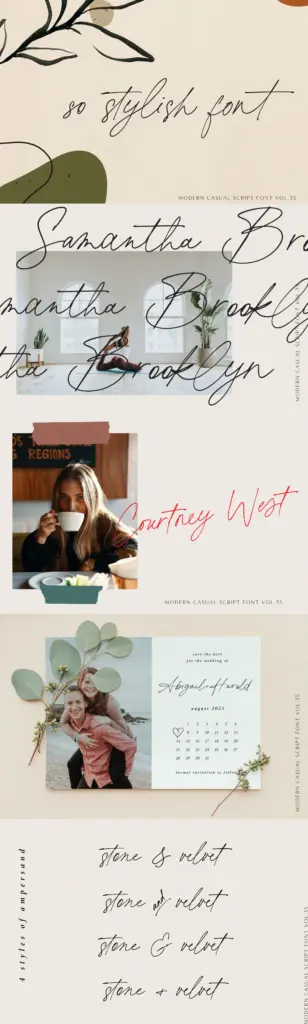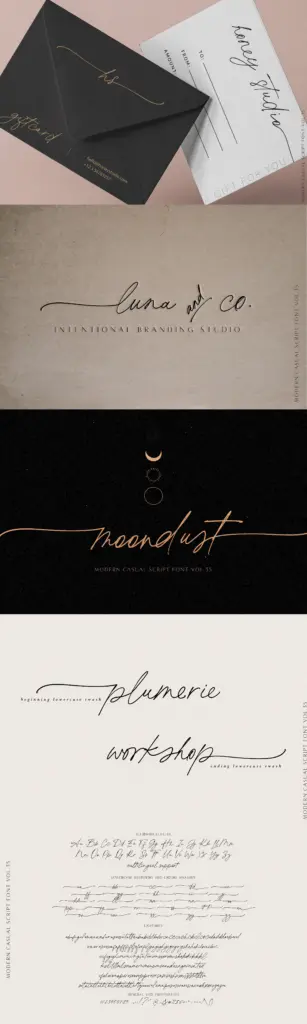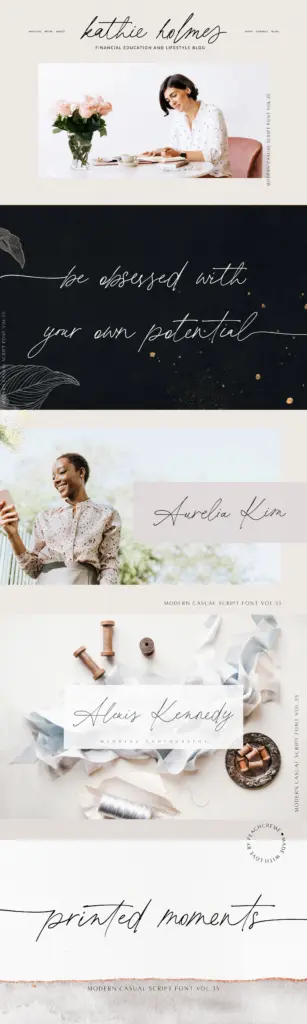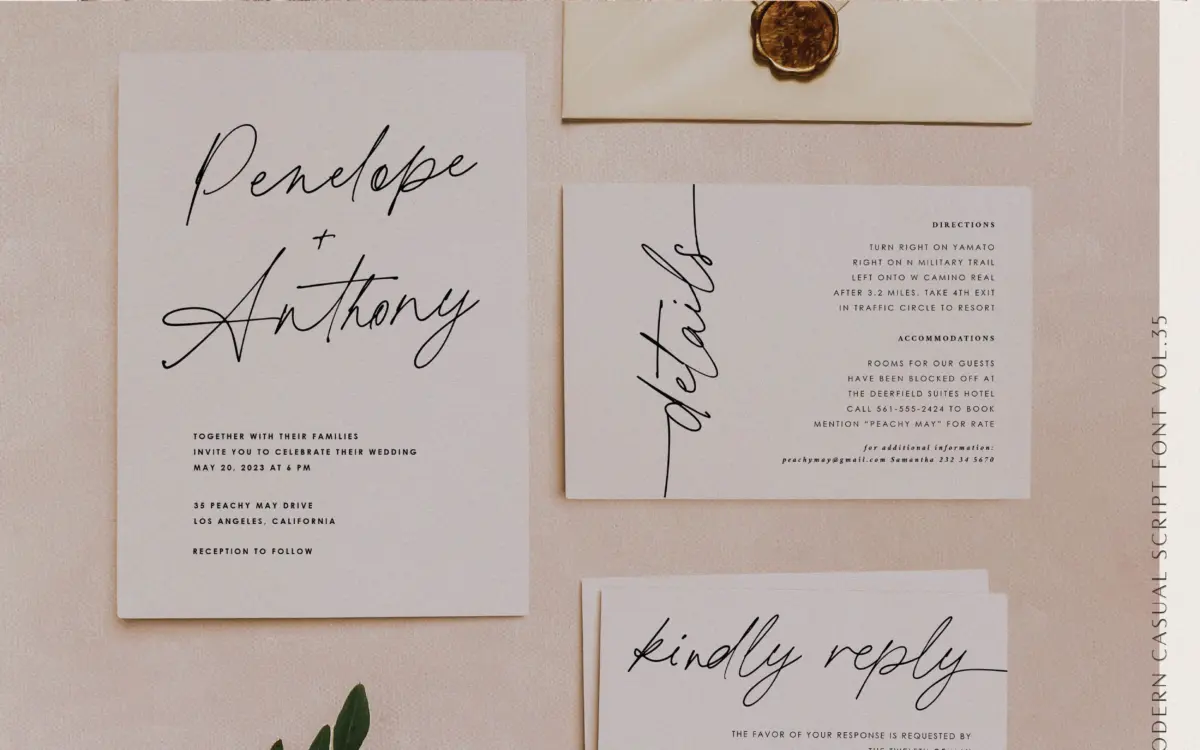
Printed Moments belongs to the crowded field of casual scripts built to look like a fast note written with a rollerball pen. The stroke stays fairly even in weight, with only a light thickening at the downstrokes, which is what gives it that ballpoint feel rather than the tapered contrast of a brush script. Letters lean forward slightly and join at a relaxed, unforced angle — this is not a formal calligraphic hand, it’s meant to read as spontaneous.
The x-height sits on the taller side for a script, which keeps lowercase letters legible even when the joins get busy. Ascenders and descenders are kept relatively short, so the font doesn’t sprawl vertically the way some looping scripts do. It’s a font drawn for quick reading at a glance, not for slow admiration of a single flourish.
The set covers uppercase and lowercase, numerals, punctuation, and multilingual symbols, so accented languages are catered for without extra hunting. The headline feature is the 134 ligatures, including beginning and ending lowercase ligatures that let a word start or finish with a little extra flourish rather than a flat terminal.
In practice this means the font needs an OpenType-aware layout tool to show its full character — without ligature substitution switched on, you’re looking at a plainer, more generic script. Once ligatures are active, the beginning and ending forms do a lot of the work of making common words feel hand-finished rather than templated. There’s no separate swash alphabet to speak of beyond these connector forms, so anyone expecting a dedicated set of decorative capitals should look elsewhere.
The ball-pen texture is consistent across the weight — there isn’t a bold or light companion mentioned, so this is a single-weight script rather than a family with multiple options.
This is a font suited to short bursts of text: a name on an invitation, a product tagline, a logotype, a greeting card message. The moderate x-height and restrained loops mean it holds up reasonably well at small sizes on packaging or stationery, somewhere many casual scripts start to clog.
For social graphics and quote cards it does the job asked of casual scripts everywhere — friendly, approachable, a bit informal — without pretending to be a luxury calligraphy font. It would sit comfortably next to a plain sans serif for contrast in a logo lockup, or as the accent line under a block of body copy.
Where it struggles is at longer lengths. Set a whole paragraph in it and the joins and forward lean that read as charming in a headline start to work against comprehension. This is a display script, not a text face, and it should be used that way — short phrases, generous spacing, and enough surrounding white space to let the ligatures breathe.
- Ball-pen texture keeps the stroke weight even and legible at small sizes
- Beginning and ending ligatures add character to common words without extra manual kerning
- Taller x-height than many casual scripts helps it hold up on compact layouts
- No bold or alternate weight, so it offers only one register of casual
- Ligatures require OpenType-aware software to show the font's intended character
Printed Moments is a competent, friendly casual script that leans on its ligature set to feel hand-finished rather than templated. It's built for short lines — names, taglines, invitations — and starts to lose its charm the longer the text runs. A solid, single-weight option rather than a standout.